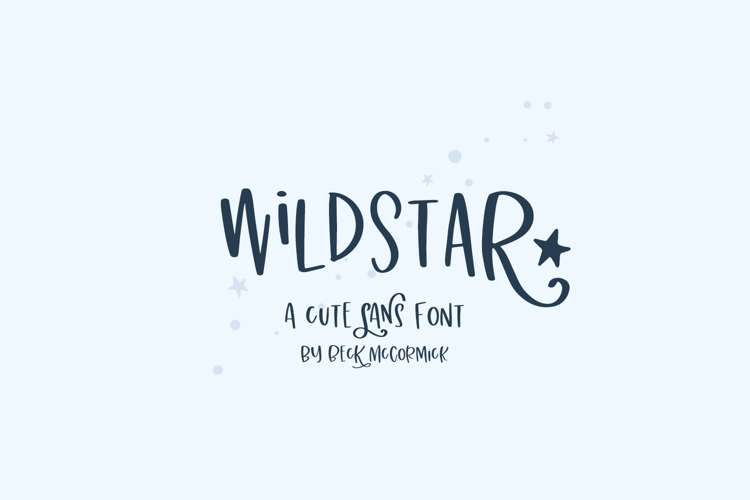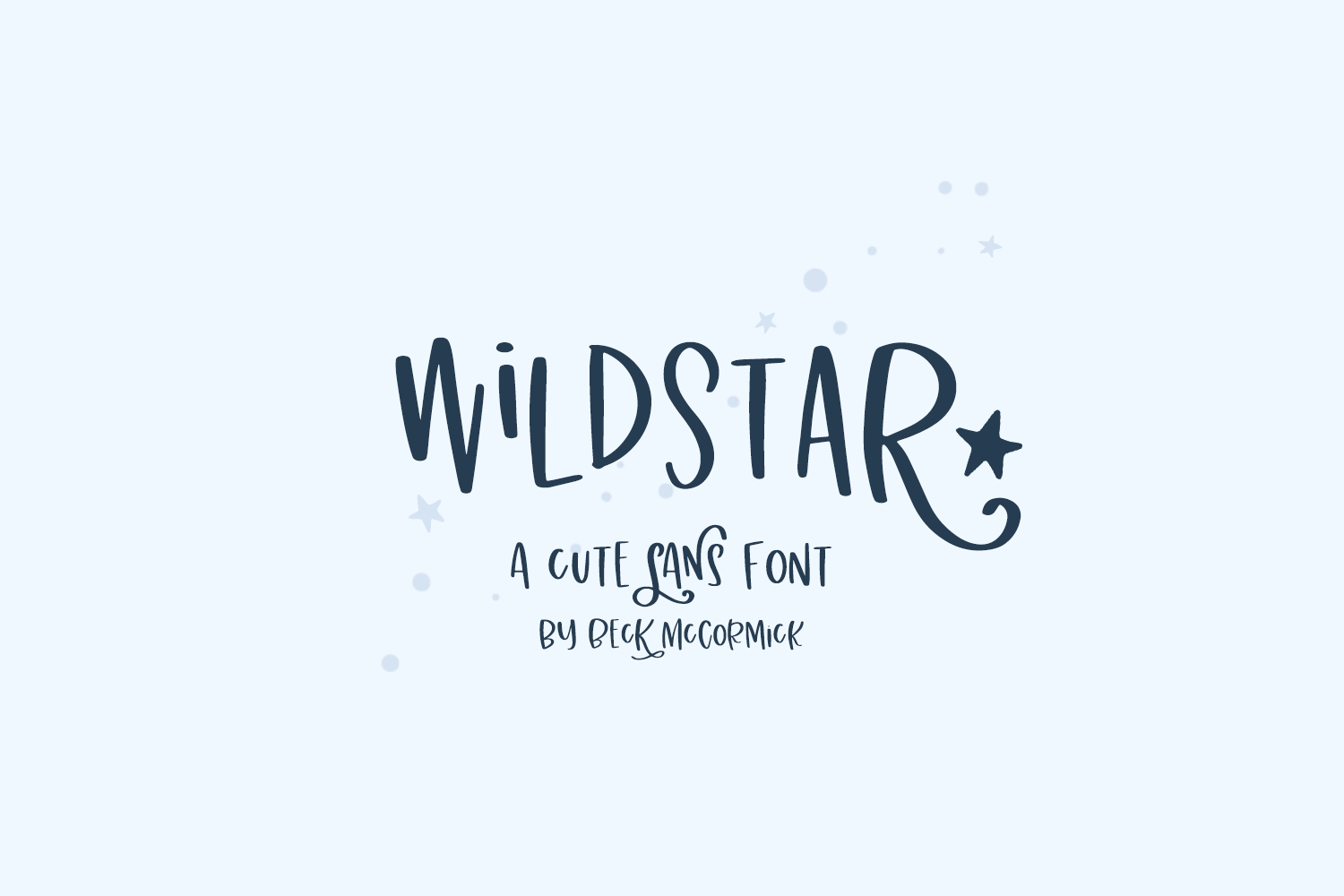
Wildstar Sans
Introducing Wildstar Sans, a quirky sans font. Wildstar includes flourished alternates, full of personality, perfect for crafty, playful projects.
Wildstar is best for:
- crafty projects with your Cricut or Silhouette machine, or your SVG design business
- whimsical farmhouse decor and crafts
- website design + website accents, blog design
Wildstar includes:
- full upper + lowercase characters (please note both character sets are caps)
- 20 alternate characters
- 7 ligatures - bb, ee, mm, nn, pp, rr, tt